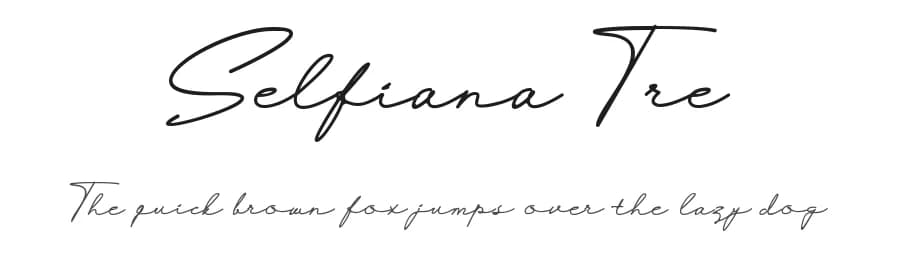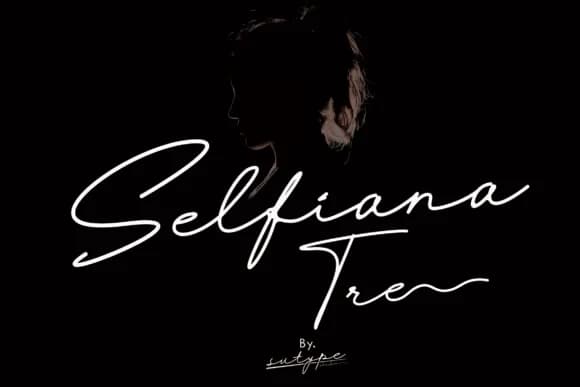
About Selfiana Tre Font
| Designer | Ignatius Sutono |
Selfiana Tre Font is a script font that shines as a display or heading face. Pair it with a clean sans-serif or serif font for body text β the contrast creates a clear hierarchy while the two styles stay balanced and easy to read.
Selfiana Tre Font
by Sutype